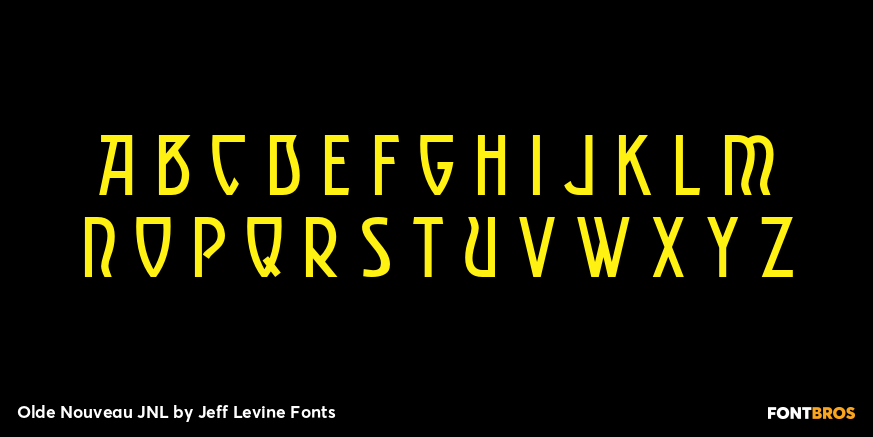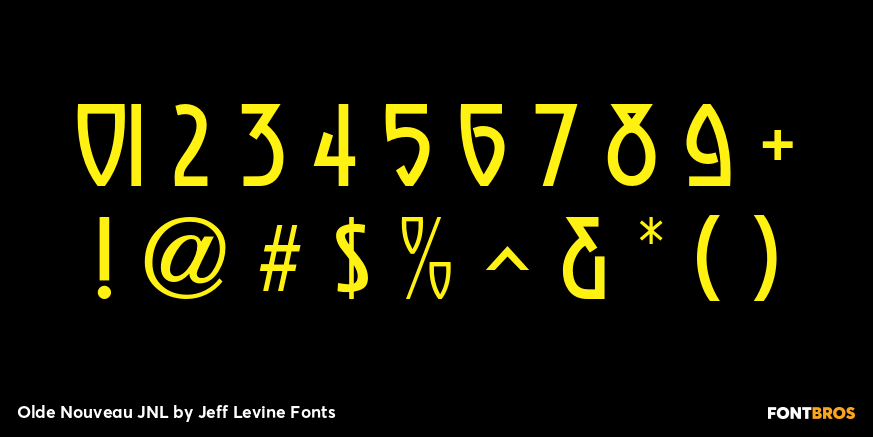
Olde Nouveau JNL
Olde Nouveau JNL is an interesting Art Nouveau typeface based on lettering found on some vintage sheet music. It's name is a contradictory pun, since "Nouveau" means new in French, and Olde (spelled in the archaic form) is the total opposite of what the Art Nouveau movement embodied.
Olde Nouveau JNL Regular by Jeff Levine Fonts